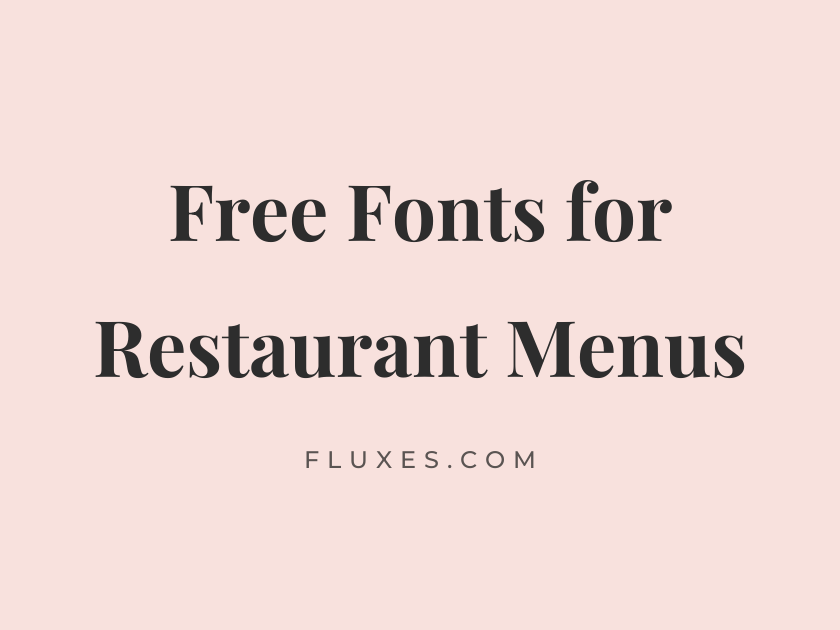
65 Best Free Fonts for Restaurant Menus
Choosing typefaces for a menu is a different job than choosing them for a website or a poster. A menu has to work at arm’s length under low restaurant lighting, hold up when photocopied for a specials insert, and still say something true about the kitchen behind it, whether that’s a white-tablecloth dining room, a neighborhood taqueria, or a coffee bar that turns over tickets all morning. Free fonts for restaurant menus have gotten remarkably good on Google Fonts, and the right pairing can do as much for a guest’s first impression as the plating itself.
What follows covers the full range: elegant serifs for fine dining wine lists, script fonts for bakery chalkboards and cafe specials, bold slabs and condensed display faces for burger joints and BBQ shacks, and clean sans-serifs for the minimalist, ingredient-forward menus that modern restaurants favor. Every one of these is free to download and use commercially, and each earns its place for a specific kind of dining room.
Playfair Display is the default answer to “elegant restaurant font” for good reason: its high-contrast strokes and sharp serifs read as instantly upscale without tipping into fussy. It pairs beautifully with a restrained sans-serif for pricing and descriptions, and it’s a workhorse for menu headers, wine lists, and cover pages alike.
Cormorant Garamond has the delicate, jewelry-like proportions of a French display serif, all thin hairlines and old-world charm. It shines at larger sizes on a fine dining cover or section header but can thin out to near invisibility in a dim dining room, so save it for headlines rather than body copy.
Modeled on Claude Garamond’s Renaissance letterforms, this is the font to reach for when a menu needs to feel literary and unhurried rather than trendy. It sets long ingredient descriptions cleanly and never fights for attention.
Libre Caslon Text
Sturdy and legible even at small sizes, Libre Caslon Text was built specifically for text-heavy layouts, which makes it an underused option for the fine print on wine lists and dietary notes.
Lora’s slightly brushed curves give it a warmth that pure geometric serifs lack, making it a comfortable middle ground between formal and rustic. It works equally well on a trattoria menu or a farm-to-table brunch card.
Crimson Pro is a scholarly, book-like serif that keeps long dish descriptions from feeling cluttered, and its open counters hold up surprisingly well printed small on a folded menu insert.
There’s a coolness to Marcellus, a Roman-inspired serif with even, classical proportions that suit steakhouses and hotel restaurants aiming for quiet confidence rather than flourish.
Cinzel borrows its letterforms from Roman stone inscriptions, and that lineage shows: it feels chiseled, permanent, and slightly grand. Reserve it for a restaurant’s name or a section title in all caps; set as running text it becomes stiff and hard to read.
A free-spirited alternative to paid classical serifs, Cardo has generous x-heights and academic roots that lend an air of old-money reliability to formal menu copy.
Designed originally for on-screen reading, Spectral’s light weight has an editorial, magazine-like elegance that suits digital menus and QR-code PDFs as much as print.
Fraunces is having a moment in restaurant branding, and it earns the attention. Its soft, almost wet-ink serifs give it a handcrafted quality that reads as artisanal rather than corporate, which is exactly the mood most independent restaurants are chasing.
It also has an optional italic with real personality, useful for a chef’s note or a short story about the sourcing on the back of the menu.
The extreme thick-thin contrast of a Didone like Bodoni Moda signals luxury instantly, the same visual shorthand used by fashion houses and high-end hotels. Use it sparingly and in caps; at small sizes the hairlines can vanish under weak lighting.
Prata has a slightly rounded, transitional serif structure that feels formal without being cold, a good pick for a menu that wants elegance without full-on Didone drama.
This one is pure atmosphere: tall, narrow, and unmistakably continental. It works as a single decorative header on an Italian or French menu but has no business anywhere near body text.
Always test a chosen pairing printed at actual menu size and under dim lighting before committing to a full print run.
Any of these free fonts, downloaded straight from Google Fonts, can carry a restaurant’s personality as clearly as its plating does. The right choice usually comes down to matching the typeface’s mood, formal, rustic, playful, or minimal, to the experience already happening in the dining room.